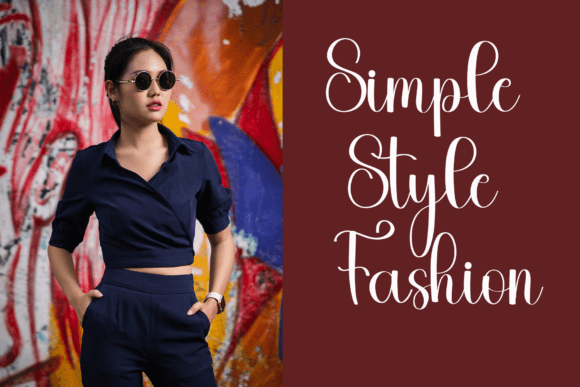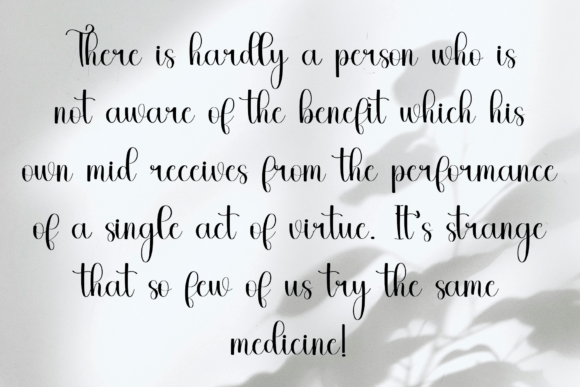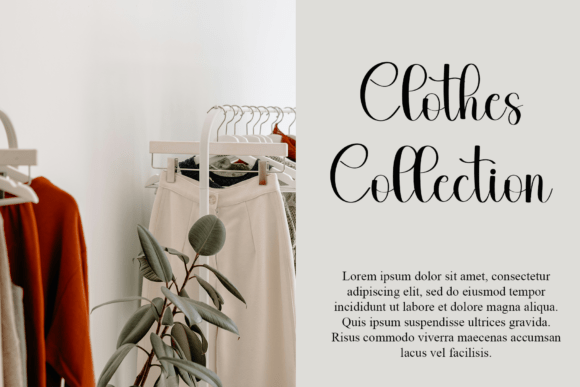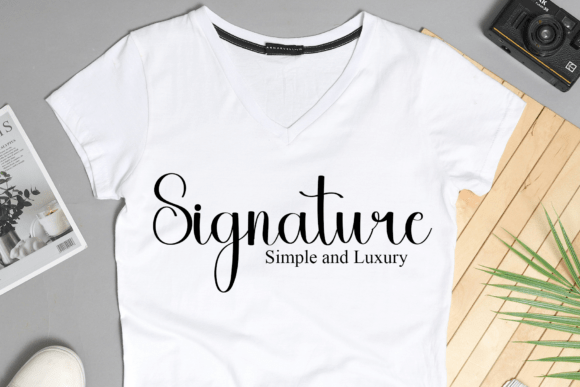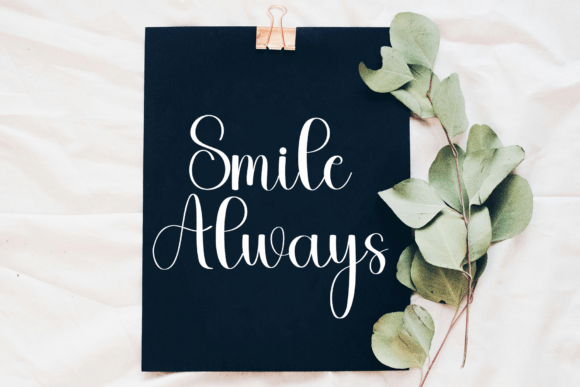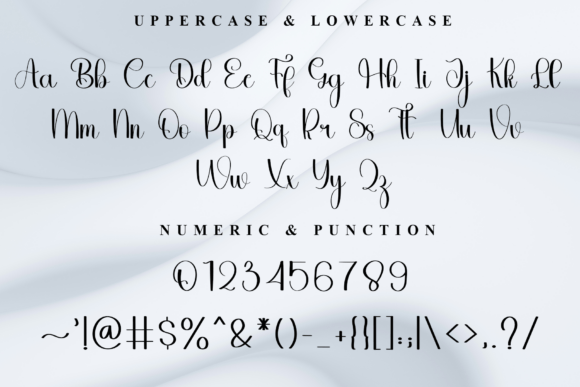
Unlock the Magic of the Holiday Season with Baby Magnoliya Font
As the snowflakes start to fall and the twinkling lights adorn the streets, we’re reminded of the joy and wonder of the holiday season. And what better way to capture that magic than with a typeface that embodies the festive spirit? I still remember designing my first holiday card as a child, carefully selecting the perfect font to convey the love and cheer of the season. It was then that I fell in love with the whimsical world of typography.
That’s why I’m excited to introduce you to Baby Magnoliya Font, a delightful and merry typeface designed specifically to add a touch of enchantment to your holiday projects. With its decorative elements and playful flair, this font is perfect for greeting cards, gift tags, and other festive designs. Whether you’re a seasoned designer or a holiday enthusiast, Baby Magnoliya Font is a valuable addition to your creative toolkit.
Baby Magnoliya Font Key Features
- Font Family: Baby Magnoliya, a script font with a delicate and elegant appearance.
- Unique Characteristics: Baby Magnoliya features a whimsical and feminine touch, making it ideal for wedding invitations, baby announcements, and other feminine designs.
Designer Review: Baby Magnoliya Font
Overall, I think the Baby Magnoliya Font is a lovely addition to any design project. ✨ The font’s elegant script style and delicate flourishes make it perfect for creating a whimsical and feminine look. I’ve used it in various designs, from children’s book covers to wedding invitations, and it always adds a touch of sophistication.
The font’s versatility is one of its greatest strengths. It works well in both bold and subtle applications, and its varying weights make it easy to customize for different design needs. ✨ I also appreciate the font’s OpenType features, which allow for advanced typographic control and nuanced styling.
- Elegant script style
- Delicate flourishes
- Highly versatile
- Varying weights
- Advanced OpenType features
- May not be suitable for bold, edgy designs
- Some characters may not be as refined as others
- Not as widely supported as more common fonts
Overall, I’m quite fond of the Baby Magnoliya Font and would recommend it to designers looking to add a touch of elegance and whimsy to their projects. However, it’s worth noting that it may not be the best fit for every design need, so be sure to consider the specific requirements of your project before making a decision.
Tips for Getting the Most Out of Baby Magnoliya Font
1. Use Baby Magnoliya Font for children’s products, nursery decor, and baby-related designs.
2. Experiment with different font sizes and styles to create visually appealing designs.
3. Pair Baby Magnoliya Font with other playful and whimsical fonts for a unique look.
Alternative Fonts to Baby Magnoliya Font
Oswald Font is a sans-serif font that is highly legible and versatile. It’s ideal for use in headings, titles, and body text. When to use: For modern and clean designs, especially in digital products and websites.
It is more geometric and modern compared to Baby Magnoliya Font, which has a more rounded and elegant feel. Oswald Font is also more suitable for longer texts due to its high legibility.
Lato Font is a sans-serif font that is highly readable and elegant. It’s ideal for use in headings, titles, and body text. When to use: For modern and sophisticated designs, especially in print materials and branding.
It is more elegant and refined compared to Baby Magnoliya Font, which has a more playful and childlike feel. Lato Font is also more suitable for formal texts due to its high readability.
What is the recommended font size and line spacing for optimal readability?
For optimal readability, we recommend using the Baby Magnoliya Font at a minimum size of 12 points. A line spacing of 1.5 to 2 times the font size is also recommended to ensure clear text flow and readability.
Is the Baby Magnoliya Font available in bold and italic styles?
Yes, the Baby Magnoliya Font is available in bold and italic styles, as well as regular. These styles can be accessed in your design software by selecting the corresponding font styles from the font menu.